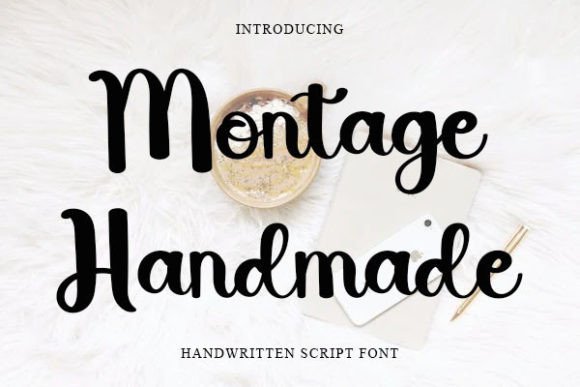
Montage Handmade Font: The Ultimate Choice for Creative Projects
In the world of typography, fonts play a crucial role in bringing creative ideas to life. Among the numerous font styles available, handwritten fonts have gained immense popularity in recent times. One such font that has caught the attention of designers and artists is the Montage Handmade Font. This cute and casual handwritten font boasts an incredibly friendly feel, making it an ideal choice for various creative projects.
What Makes Montage Handmade Font Stand Out?
Montage Handmade Font is a unique and charming font that offers a distinct character. Its handmade feel and friendly tone make it perfect for designs that require a personal touch. Here are some key features that set this font apart:
- Cute and Casual: Montage Handmade Font has a playful and informal vibe, making it suitable for designs that require a lighthearted and approachable tone.
- Handwritten Style: The font’s handwritten style gives it a personal and authentic feel, perfect for creating unique and eye-catching designs.
- Friendly Feel: The font’s friendly tone makes it ideal for designs that require a warm and welcoming approach.
10 Creative Ways to Use Montage Handmade Font
Montage Handmade Font is a versatile font that can be used in a variety of creative projects. Here are 10 ideas to get you started:
- Instagram Graphics: Use Montage Handmade Font to create engaging and visually appealing Instagram graphics that showcase your brand’s personality.
- DIY Projects: Add a personal touch to your DIY projects, such as handmade cards, gift tags, and scrapbook pages, with this charming font.
- Calligraphy Scripts: Use Montage Handmade Font as a calligraphy script for special occasions, such as weddings, birthdays, and anniversaries.
- Branding Materials: Incorporate Montage Handmade Font into your branding materials, such as business cards, brochures, and letterheads, to add a touch of warmth and personality.
- Social Media Posts: Use Montage Handmade Font to create eye-catching social media posts that stand out from the crowd.
- Blog Headers: Add a creative touch to your blog headers with Montage Handmade Font, making your content more engaging and shareable.
- Invitations: Design beautiful and unique invitations for special occasions, such as parties, baby showers, and graduations, using Montage Handmade Font.
- Product Labels: Use Montage Handmade Font to create custom product labels that add a personal touch to your products.
- Signage: Incorporate Montage Handmade Font into your signage, such as store signs, banners, and posters, to create a friendly and approachable atmosphere.
- Packaging: Add a creative touch to your packaging with Montage Handmade Font, making your products stand out on store shelves.
The Benefits of Using Montage Handmade Font
Montage Handmade Font offers numerous benefits that make it an ideal choice for designers and artists. Here are some of the advantages of using this font:
- Unique Character: Montage Handmade Font has a distinct character that sets it apart from other fonts, making your designs more recognizable and memorable.
- Versatility: The font’s versatility makes it suitable for a wide range of creative projects, from Instagram graphics to DIY projects.
- Easy to Read: Montage Handmade Font is easy to read, even in smaller sizes, making it perfect for designs that require a clear and concise message.
- Customizable: The font’s handmade feel makes it easy to customize and modify to fit your specific design needs.
Tips and Tricks for Using Montage Handmade Font
To get the most out of Montage Handmade Font, here are some tips and tricks to keep in mind:
- Pair with Other Fonts: Experiment with pairing Montage Handmade Font with other fonts to create a unique and visually appealing design.
- Adjust Font Size: Adjust the font size to create visual hierarchy and emphasize important information.
- Use Color: Use color to add an extra layer of personality to your design and make it more engaging.
- Experiment with Styles: Experiment with different styles, such as bold, italic, and underline, to add emphasis and create visual interest.
In conclusion, Montage Handmade Font is a charming and versatile font that offers a unique character and friendly tone. Its handmade feel and easy-to-read style make it perfect for a wide range of creative projects, from Instagram graphics to DIY projects. With its numerous benefits and customization options, Montage Handmade Font is an ideal choice for designers and artists looking to add a personal touch to their designs.